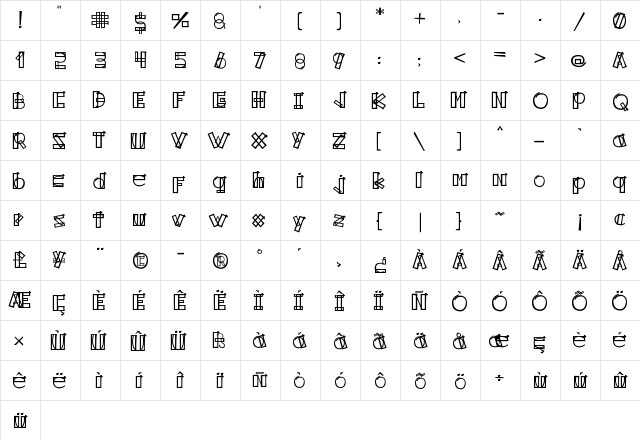
KODYZ Regular
| Foundry | Jaime Rangel Castro |
| Designer | Jaime Rangel Castro |
Design Context for KODYZ Typeface
KODYZ is a composed and adaptable typeface that performs quietly and consistently across a wide range of design contexts.